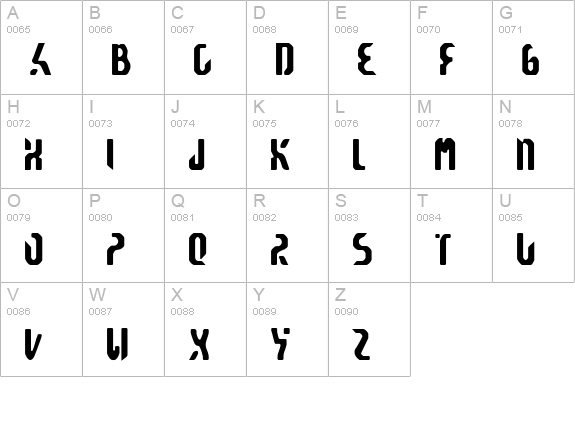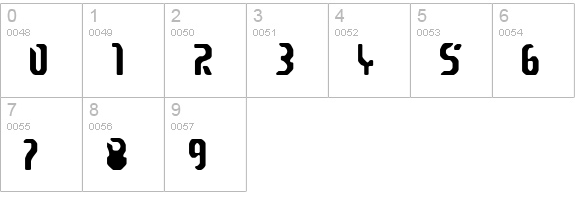
Reticulan Font Details
Introducing Reticulan font, a stunning typeface that combines elegance and versatility in perfect harmony. Designed with the utmost attention to detail, Reticulan exhibits a unique blend of modern and classic elements, making it a truly captivating choice for any design project. This font boasts a sleek and refined appearance, with clean lines and smooth curves that effortlessly capture the eye. Its carefully crafted letterforms exude sophistication and professionalism, making it an ideal choice for both digital and print applications. Reticulan offers an extensive range of weights and styles, providing endless possibilities for creative expression. From bold and impactful headlines to delicate and graceful body text, this font adapts seamlessly to any design concept, ensuring that your message is conveyed with clarity and style. But what truly sets Reticulan apart is its versatility and accessibility. This font is freely available to download at FontsMarket.com, allowing designers, artists, and enthusiasts of all levels to experience its beauty and functionality without any limitations. Whether you're working on a personal project or a commercial endeavor, Reticulan empowers you to bring your vision to life with ease and confidence. So, why settle for ordinary when you can elevate your designs with the extraordinary? Discover the endless possibilities that Reticulan font offers and unleash your creativity today. Download it for free at FontsMarket.com and embark on a journey of visual excellence.